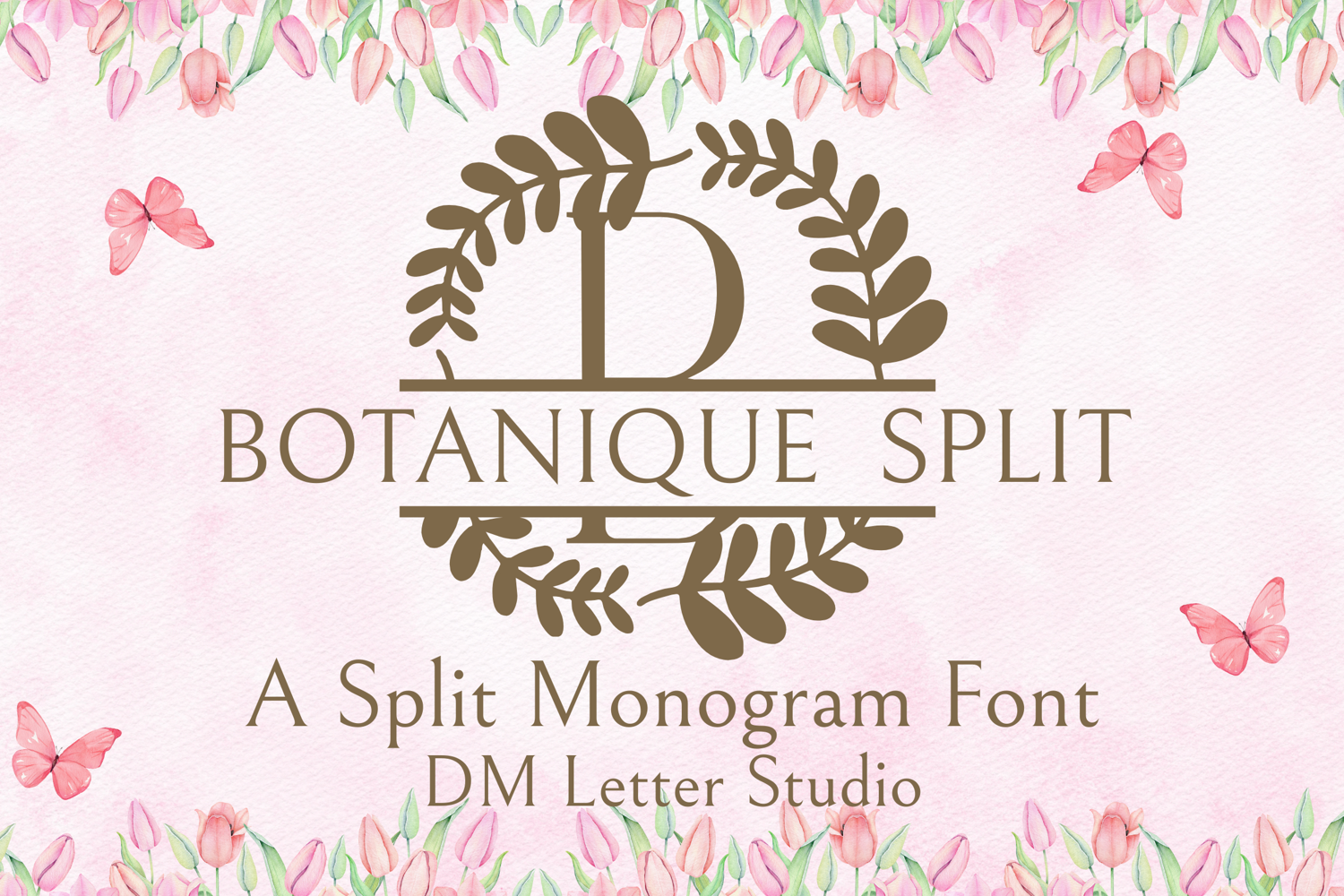
Botanique Split Monogram - Elegant Botanical Split Letter
Botanique Split Monogram
Botanique Split Monogram – Elegant Botanical Split Letter Font
Botanique Split Monogram is a refined serif monogram font enhanced with graceful botanical flourishes and a clean horizontal split, ideal for inserting custom names or initials. Each uppercase letter features delicate leaf and vine accents, perfect for wedding signage, custom gifts, boutique branding, and nature-inspired design projects. Its balance of structure and organic elegance makes it a timeless addition to any creative toolkit.
• Split Serif Design: Uppercase letters with a horizontal split for seamless name or word insertion.
• Botanical Accents: Adorned with hand-drawn vines and leaves for a natural, artistic finish.
• Custom Friendly: Created for monograms, nameplates, and custom branding.
• Ideal For: Wedding decor, custom gifts, Cricut projects, stationery, eco-luxe branding, and elegant signage.